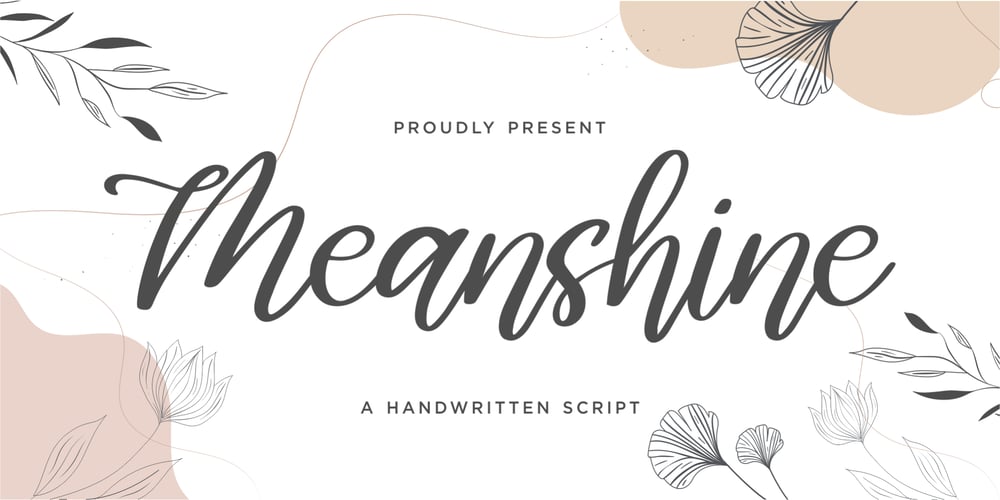
Meanshine
Meanshine font
Meanshine Font Family was designed by Suhery Anto, Odies Dwi Yudhistira and published by Qwrtype Foundry. Meanshine contains 1 styles and family package options. Proudly presenting: Meanshine is a handwritten script font.Meanshine is perfect for product packaging, branding projects, magazines, social media, wedding invitations, or just used to express words above the background.Meanshine also comes with multillingual support.Enjoy the font, thank you!